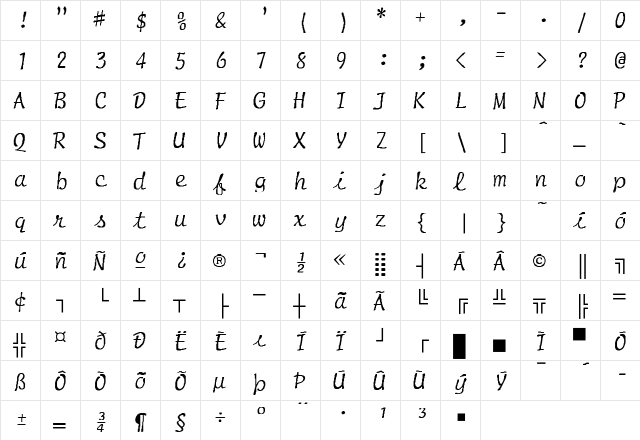
Amesbury Italic Regular
Design Context for Amesbury Italic Typeface
Amesbury Italic takes a measured approach to typography — its balanced proportions and neutral character make it a reliable workhorse for both digital and print work. The slanted form adds forward momentum and visual energy.